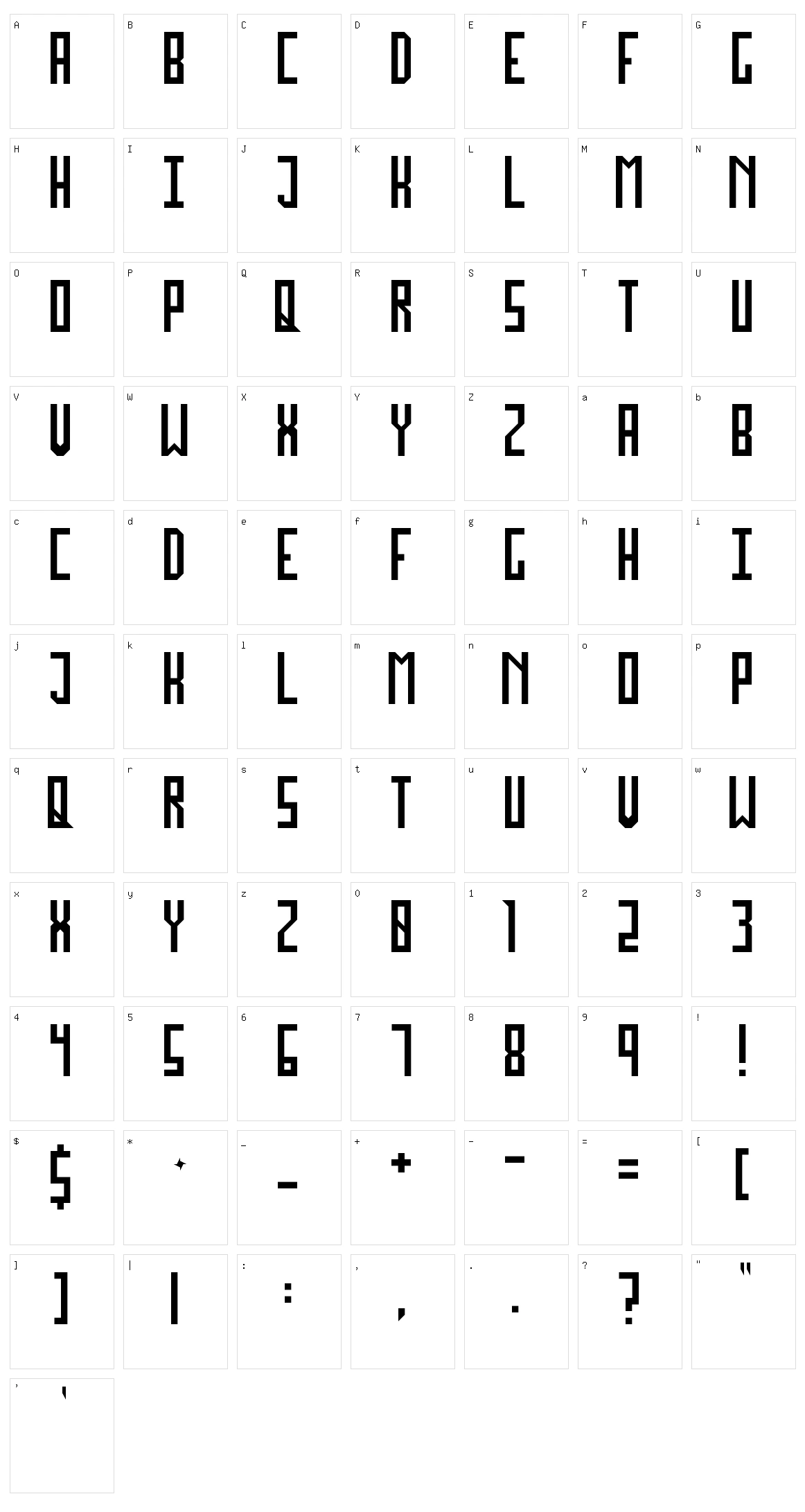
The free font Jocko Mongo is carefully designed by Edward Bignar, showcasing a thoughtful balance of creativity and usability and falls under the Square font style. When you download the ZIP file, it contains only 3.7 KB of font files, making it lightweight and quick to download. Please review the license details below to understand permitted usage and distribution rights. If license information is not available, we recommend using this font for personal projects only or contacting the author directly for commercial usage permissions.